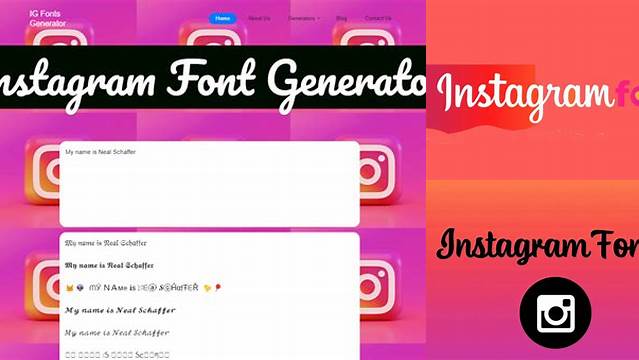
IG Fonts Google Search: Unleash Your Instagram Style
Are you ready to jazz up your Instagram game, guys? We're diving headfirst into the wonderful world of IG fonts Google search! This isn't just about the regular fonts; it's about finding those unique, stylish, and totally eye-catching fonts that'll make your profile pop. Think of it as giving your Instagram a complete makeover. And the best part? It's all accessible through a simple IG fonts Google search. No need for fancy tech skills or complicated software. Just a bit of creativity and the right search terms, and you're on your way to Insta-fame! Let's get started, shall we? Because let's be honest, a boring font is a total snooze-fest, and we're here to banish that! We want to transform your Instagram into a visually stunning masterpiece. So, buckle up, because this guide will lead you through the ins and outs of using IG fonts Google search to find the perfect fonts for your Instagram.
H2: Decoding the Best IG Fonts with Google Search
So, you wanna know the secret to snagging the coolest IG fonts? It all starts with a smart Google search. Forget the generic searches; we're talking about precision. Use specific terms to narrow down your options. Instead of just typing “Instagram fonts,” try “cool Instagram fonts,” “stylish Instagram fonts,” or even “fancy Instagram fonts.” Get creative! Think about the vibe you're going for. Are you aiming for a vintage look? Try “retro Instagram fonts.” Want something modern and sleek? Search for “minimalist Instagram fonts.” The more specific your search, the better your results will be. Remember, it's a treasure hunt. And your reward? A profile that screams personality. One great way to find different fonts, besides IG fonts Google search, is using font generators. These handy tools let you type in your desired text and preview it in various fonts. You can then copy and paste the font into your Instagram bio, captions, and stories. It’s a quick and easy way to experiment with different styles and see what looks best. There are tons of font generators available online, so take a look and discover which one you love the most! Another tip is to check out Instagram profiles of people whose style you admire. See what fonts they're using and then search for them using an IG fonts Google search. This can give you some great ideas and help you discover fonts that you might not have found otherwise. Don't be afraid to mix and match fonts! You can use different fonts for your bio, captions, and stories to create a unique and visually interesting profile. Just make sure the fonts complement each other and are easy to read. And finally, remember to have fun! Experiment with different fonts and styles until you find something that you love. Instagram is all about expressing yourself, so let your personality shine through your font choices. With a little bit of searching and creativity, you'll be well on your way to an Instagram profile that stands out from the crowd.
H3: Mastering the Art of IG Fonts Google Search Keywords
Alright, let's get down to the nitty-gritty: keywords. This is where the magic happens in your IG fonts Google search! You've got to be strategic. Think of it like choosing the perfect ingredients for a recipe. Your keywords are those ingredients. They need to be precise and relevant to get the best results. Don't just stick to the basics. Think outside the box. Instead of “Instagram fonts,” try “cursive Instagram fonts” if you're after that elegant look. Or maybe you want something bold and playful? Then try “bubble Instagram fonts” or “cartoon Instagram fonts.” When performing an IG fonts Google search, another effective tactic is to include terms like “free” or “download.” This can filter your results to show you fonts that are available for free use, which is always a bonus! Also, consider the context of how you plan to use the font. Are you using it for a logo, a bio, or captions? The best keywords can change depending on that, so customize your search. Maybe you want to stand out and make your posts eye-catching. So, try “unique Instagram fonts” or “quirky Instagram fonts.” Remember, the goal is to narrow down your search and find the perfect font for your needs. Always experiment with different keyword combinations to see what works best. Don't be afraid to try multiple searches using varied keywords to find that perfect font that represents your brand. This way, you can find a font that truly speaks to your style and makes your profile stand out.
H2: Free and Paid IG Font Options: A Google Search Breakdown
So, you're diving into the world of IG fonts Google search, and you’re probably wondering about cost. Let’s be real, nobody wants to break the bank! The good news is, there are tons of free options out there, and a few paid ones that might be worth the investment. Start your IG fonts Google search with keywords like “free Instagram fonts.” This will filter your results and show you all the available freebies. There are a lot of websites that offer free fonts, so be ready to explore a bit. Check out websites like dafont.com or fonts.com. These are great starting points for browsing a wide selection of fonts. Just make sure to check the licensing details before you use any font, especially for commercial purposes. Some fonts are free for personal use but require a license for commercial use. On the other hand, paid fonts can offer unique features and superior quality. If you're serious about your Instagram branding, investing in a high-quality paid font might be worth it. You can often find them on websites like Creative Market or Etsy. The beauty of using IG fonts Google search for both free and paid fonts is the endless options. You have total control over the aesthetic, and your profile is the canvas. Consider what kind of statement you want to make and go from there! Remember, the best font is the one that best reflects your brand and resonates with your audience. So whether you go free or paid, the most important thing is that you make an informed decision. Make sure you choose a font that is easy to read and that aligns with your overall brand image. The beauty of using IG fonts Google search is that you can constantly explore your options. Keep in mind that free fonts are usually available for personal use, and if you plan on using them for commercial purposes, you might need to purchase a license.
H3: Evaluating Free IG Font Resources Found Through Google
Alright, let's talk about the free font resources that you'll find through your IG fonts Google search. There are tons of options out there, but it’s important to know how to evaluate them. Not all free fonts are created equal, guys! One of the first things to check is the font’s licensing. Make sure you understand the terms of use. Can you use it for personal use only? Or is it also okay for commercial use? This is especially important if you're using Instagram for business. Take a look at the font's quality. Is it well-designed and easy to read? Some free fonts can be poorly made or have issues like kerning problems. If the font looks low-quality, it's best to move on and find a better option, especially when browsing through an IG fonts Google search. Don’t forget about readability! The font should be clear and easy to read, especially in the small sizes used on Instagram. Avoid fonts that are too ornate or difficult to decipher. Test the font before you commit. Try it out in your Instagram bio, captions, and stories to see how it looks and feels. Make sure that the font works well with your other content. Make sure your IG fonts Google search includes searches like “free fonts for Instagram” or “best free fonts for Instagram.” This is a great way to find resources that are specifically catered to your needs. Keep in mind that free font websites often have a wide selection to choose from, and they may have fonts that fit your brand’s specific needs. Take your time and explore the options, and don't be afraid to experiment! Always remember to check the license of each font and read the terms of use before you use any of them on your Instagram. You might discover some hidden gems! Finding free fonts through IG fonts Google search is like finding treasures – it might take some time, but it's totally worth it when you find the perfect one.
H2: IG Font Generators and Google Search: A Dynamic Duo
Okay, guys, let's talk about a dynamic duo: IG fonts Google search and font generators. Font generators are online tools that let you type in your text and see how it looks in different fonts. It's like having a virtual font playground! These tools are incredibly helpful. They let you preview fonts and see how your text will look on your profile. That way, you can make informed decisions about the fonts you want to use. To find font generators, simply use a search like “Instagram font generator” or even try a specific IG fonts Google search, such as “[desired font style] font generator.” This will bring up a lot of options. Once you find a generator, just type in your text and start experimenting! The generators usually have a library of fonts, including those you’ve found from your IG fonts Google search, where you can copy and paste into your Instagram bio, captions, or stories. This is a quick and easy way to test out different styles and see what looks best. It is like a cheat sheet for fonts! Font generators can also offer unique features. Some will let you customize your text with different colors, sizes, and effects. This adds an extra layer of creativity to your Instagram profile. The integration of IG fonts Google search and font generators is where the magic happens. You can use Google to research fonts, then try them out on a generator before committing to them. This combination gives you the best of both worlds: the power of research and the ease of experimentation. So, grab your search bar and get ready to make some magic happen with your Instagram profile!
H3: Step-by-Step Guide: Using IG Font Generators Found Via Google
Let's get practical! Using IG fonts Google search to find font generators and then using those generators is a piece of cake. Here's a step-by-step guide to get you started. First, perform an IG fonts Google search using keywords like “Instagram font generator” or “text generator for Instagram.” Explore the results and find a generator that looks appealing. Most of these websites are user-friendly, so you'll be able to navigate them easily. Once you've chosen your generator, type your desired text into the input field. Then, browse through the various font options. Many font generators will have a preview feature, so you can see how your text will look in different fonts. When you find a font you like, the generator will usually provide a way to copy the text. This is where the magic happens! Copy the text and paste it into your Instagram bio, caption, or story. Be sure to test different font styles through the generator using your IG fonts Google search! Experiment with different font combinations to find the perfect look for your profile. Have fun and be creative! Remember to play around with the font to make it your own. Don't be afraid to experiment with the text and styles. Now, once you have the text, you can paste the generated font directly onto your Instagram profile. If you want to make sure your text truly stands out, consider the overall aesthetic of your Instagram profile. Choose fonts that complement your photos and videos. Your Instagram is a visual representation of your brand or personality. This means every detail, including your fonts, has to work together. Also, always make sure that the fonts you select are readable and easy to view! The goal of every content creator is to attract people to their profile, and the quality of the text can go a long way in achieving that. You can customize your profile with a unique touch by combining IG fonts Google search with font generators.
H2: IG Fonts for Bio, Captions, and Stories: A Google Search Approach
Time to talk about how to apply your newfound font knowledge to your Instagram. Your Instagram bio, captions, and stories are all prime real estate for cool fonts. Let’s break it down! Your Instagram bio is your first impression. It's the place to introduce yourself and grab your audience’s attention. A unique font can make a big difference in making that first impression count. Use IG fonts Google search to find fonts that are elegant or eye-catching for this space. For captions, think about the tone you want to set. Are you going for a fun, casual vibe? Or something more professional? A more casual font might be suitable for personal content, and a more formal font might be better for professional content. Also, make sure your caption text is easy to read. You don’t want your message lost in an overly complicated font. Now, let's get to stories. This is where creativity really shines! Stories allow you to experiment with different fonts and layouts. You can use bold fonts to highlight important information. You can also pair fonts with fun backgrounds and graphics to create visually appealing content. When searching for IG fonts, using Google, you should also consider that the fonts are compatible with the stories feature. The options are endless, so be creative! Experiment with different combinations of fonts, colors, and graphics to create stories that are both engaging and informative. Always make sure the fonts are readable on the chosen background. You can easily test them before posting by saving the story to your camera roll and checking how it looks. And finally, remember that it’s about your style! Don’t be afraid to try out different fonts and see what works best for your brand. Instagram is about expressing yourself, so let your personality shine through your font choices. Have fun, and be creative!
H3: Selecting the Right IG Fonts for Your Bio: A Google Search Guide
Let’s talk about your Instagram bio! This is the first thing people see when they visit your profile. It’s your chance to make a great first impression. You want a font that's both eye-catching and easy to read. Start with a targeted IG fonts Google search. Use search terms like